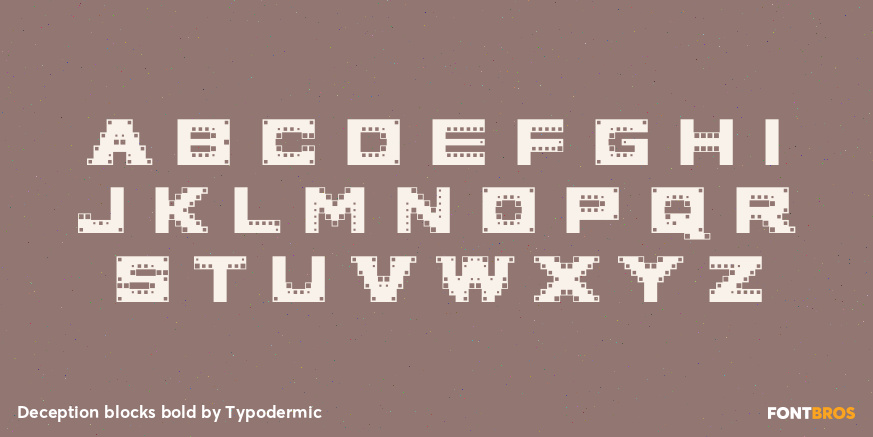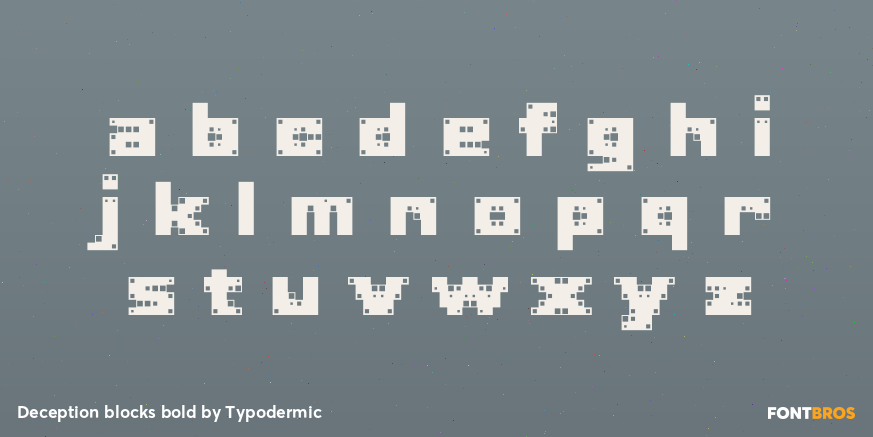
Deception blocks bold
Deception Blocks resolves the family into chunky pixel cells, as though an image has been enlarged, thresholded, or reduced to a low-resolution evidence file. Its blunt modular texture makes digital construction immediately visible and gives short words the authority of a diagnostic readout.
Use Blocks for compression research, digital-forensics graphics, machine-learning demonstrations, retro display exhibits, game interfaces, dataset covers, and campaigns about manipulated media. Regular handles longer headings; Bold pushes the cell structure forward for stage screens, posters, and title cards.